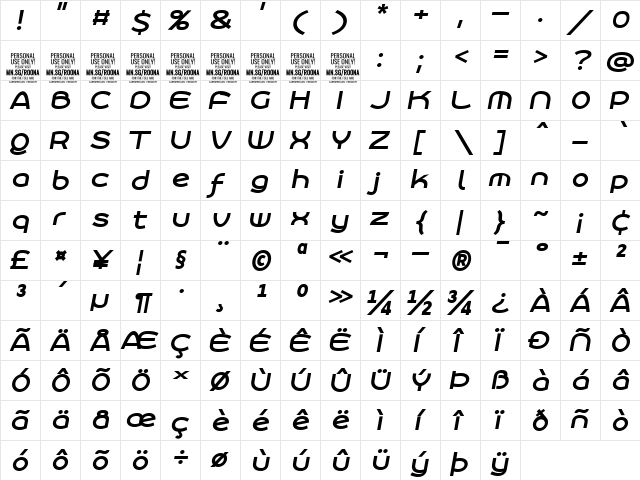
Roona Sans Bold PERSONAL Italic Font Preview
Design Context for Roona Sans Bold PERSONAL Typeface
Roona Sans Bold PERSONAL takes a measured approach to typography — its balanced proportions and neutral character make it a reliable workhorse for both digital and print work. Its italic angle brings a sense of urgency and motion to the letterforms. Its bold stroke weight gives it real presence on the page.
Pro Tip: Use Roona Sans Bold PERSONAL for emphasis, pull quotes, and subheadings where its slanted energy can add rhythm to the layout.